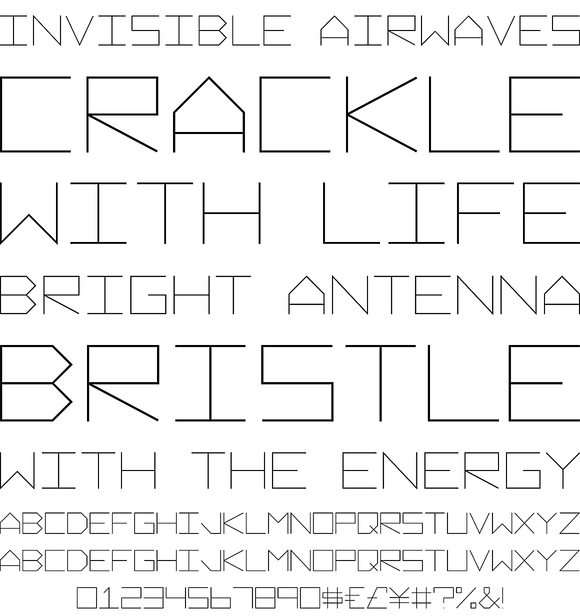
Vektori
Foundry: Suomi Type Foundry
Vektori family comes from those Atari games that had those distinct vector graphics with thin and precise straight lines. Contains 6 very diverse width styles, that make it easy to fit any type layout in need of some digital styling.